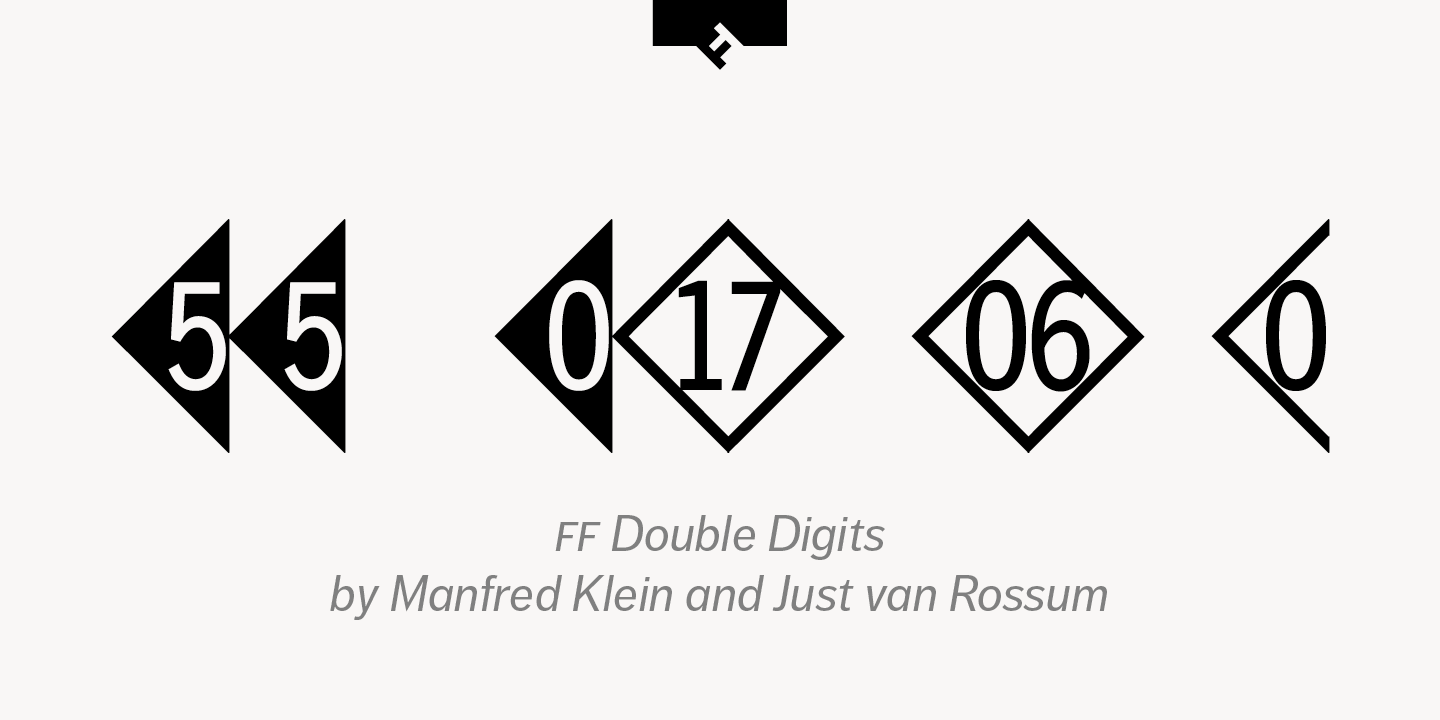
FF Double Digits Font Free Download is a modern and sleek typeface designed with clean lines and a contemporary feel. Its precise, geometric forms make it ideal for digital projects, branding, editorial layouts, and user interfaces.
With excellent readability and a futuristic vibe, FF Double Digits Font Free Download suits headlines, logos, and body text alike, providing versatility across various design contexts.
Upgrade your design game with the sophisticated and dynamic style of FF Double Digits Font Free Download. For a font that balances modernity and clarity effortlessly, FF Double Digits is an outstanding choice.